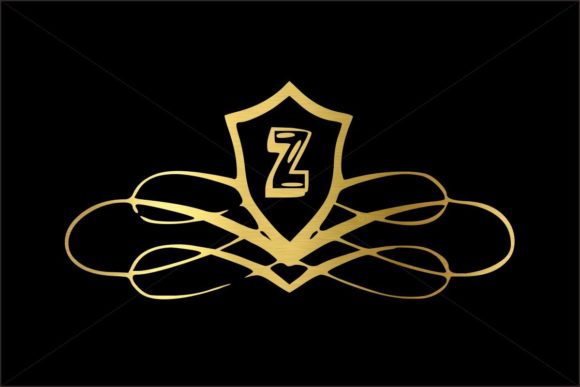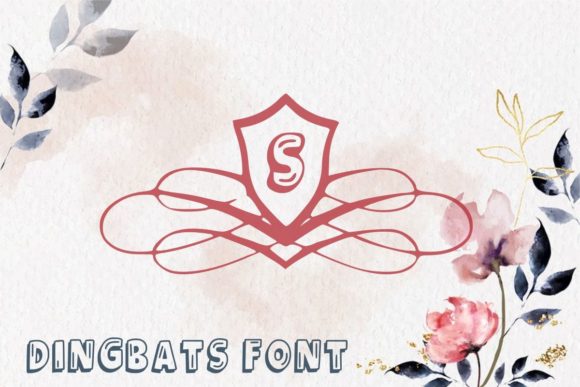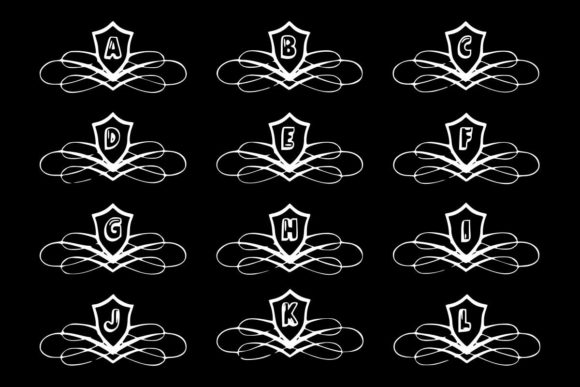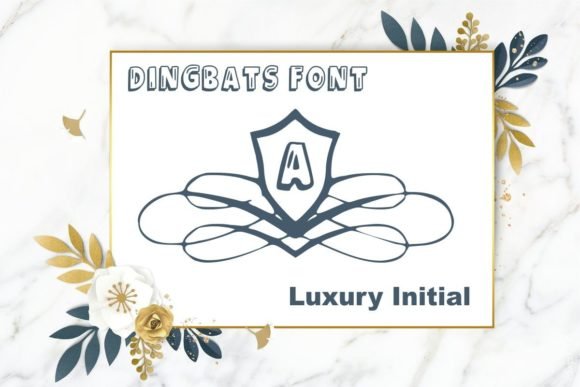
Introduction to Luxury Initial Font
Luxury Initial is a gorgeous dingbats font that delivers a wonderfully charming set of luxury frames.
Why Choose Luxury Initial Font?
Luxury Initial Font offers exceptional quality and versatility, making it a valuable addition to your design toolkit. Whether you’re creating for personal projects or commercial use, Luxury Initial Font delivers professional results.